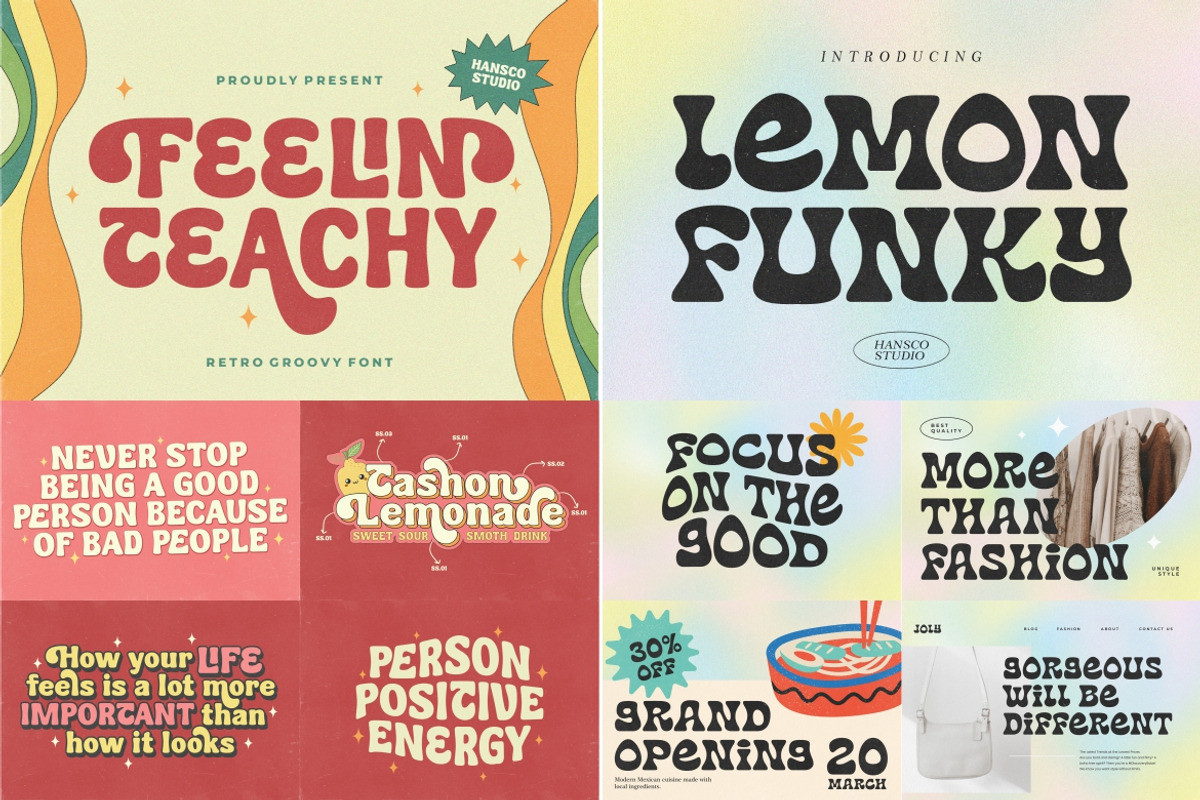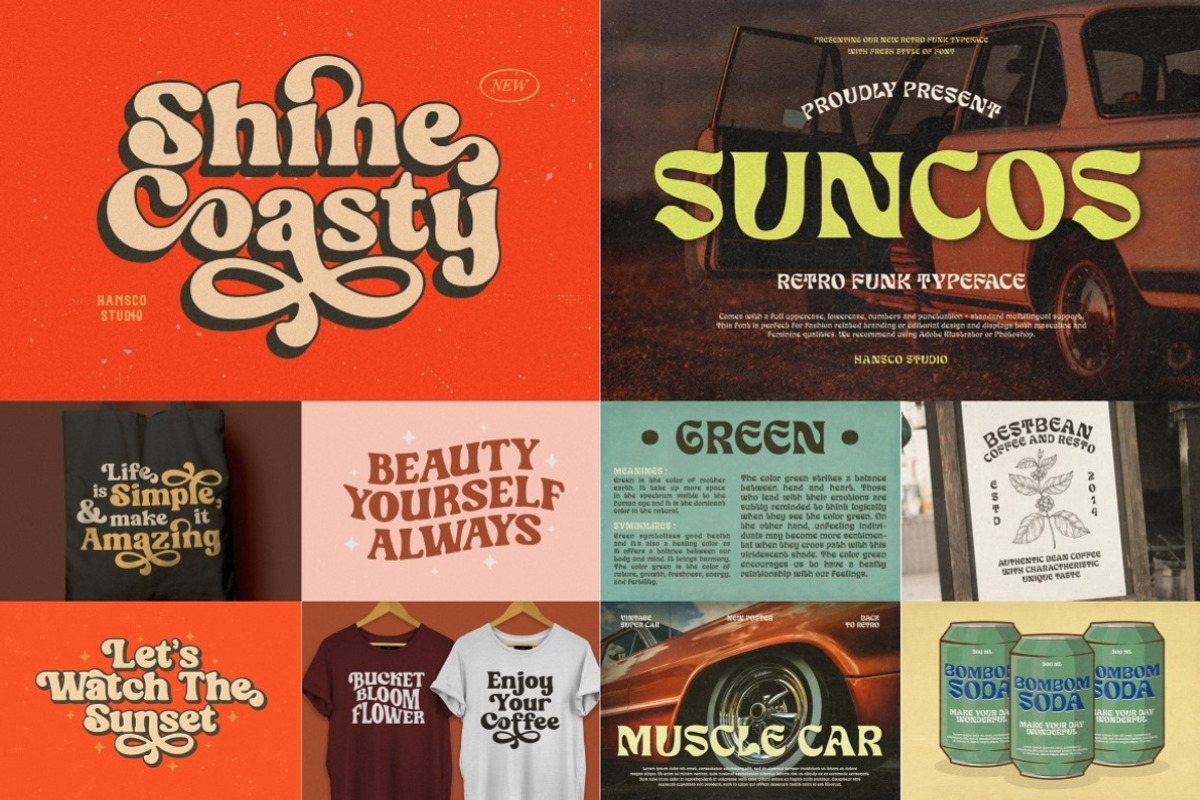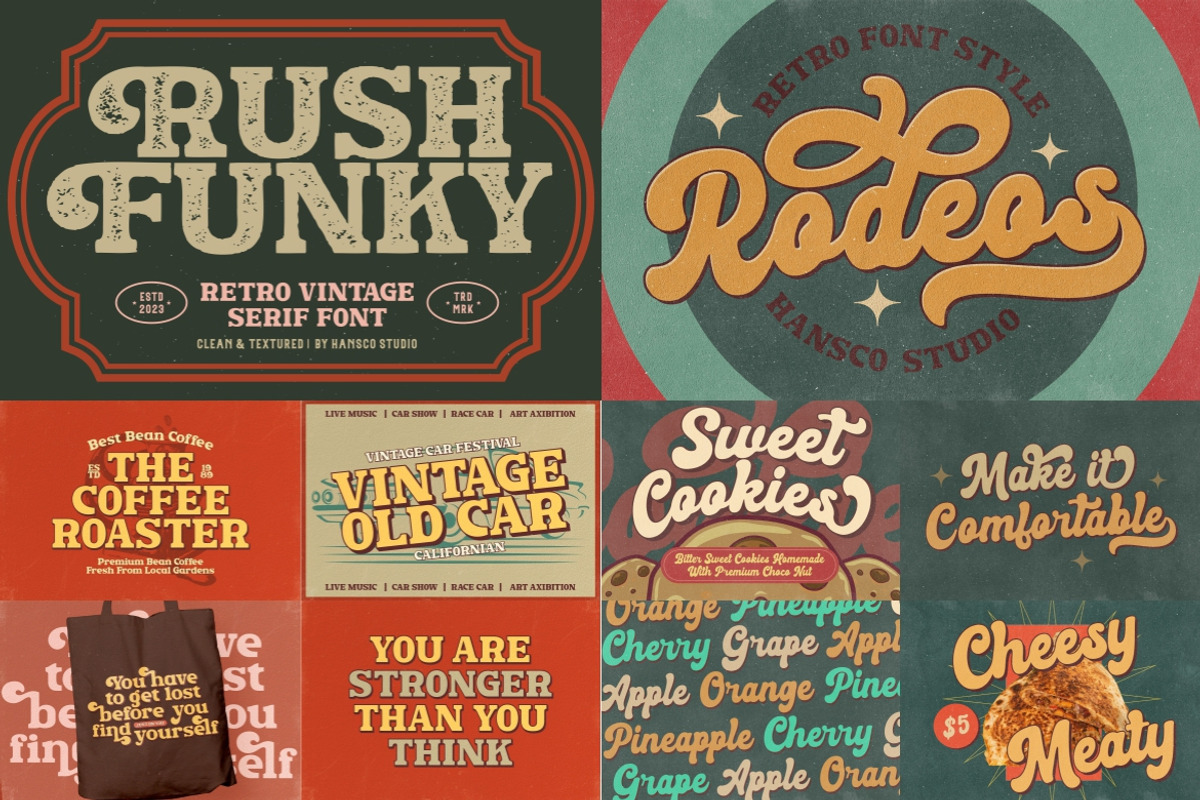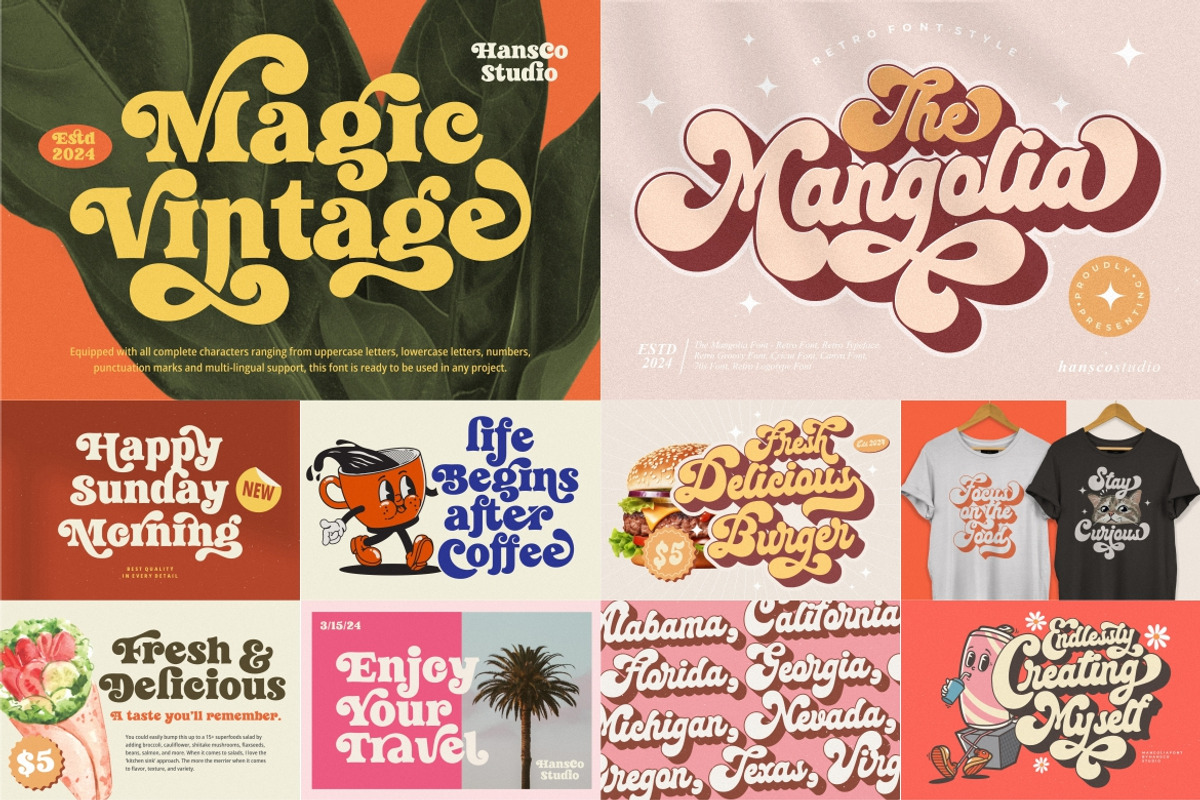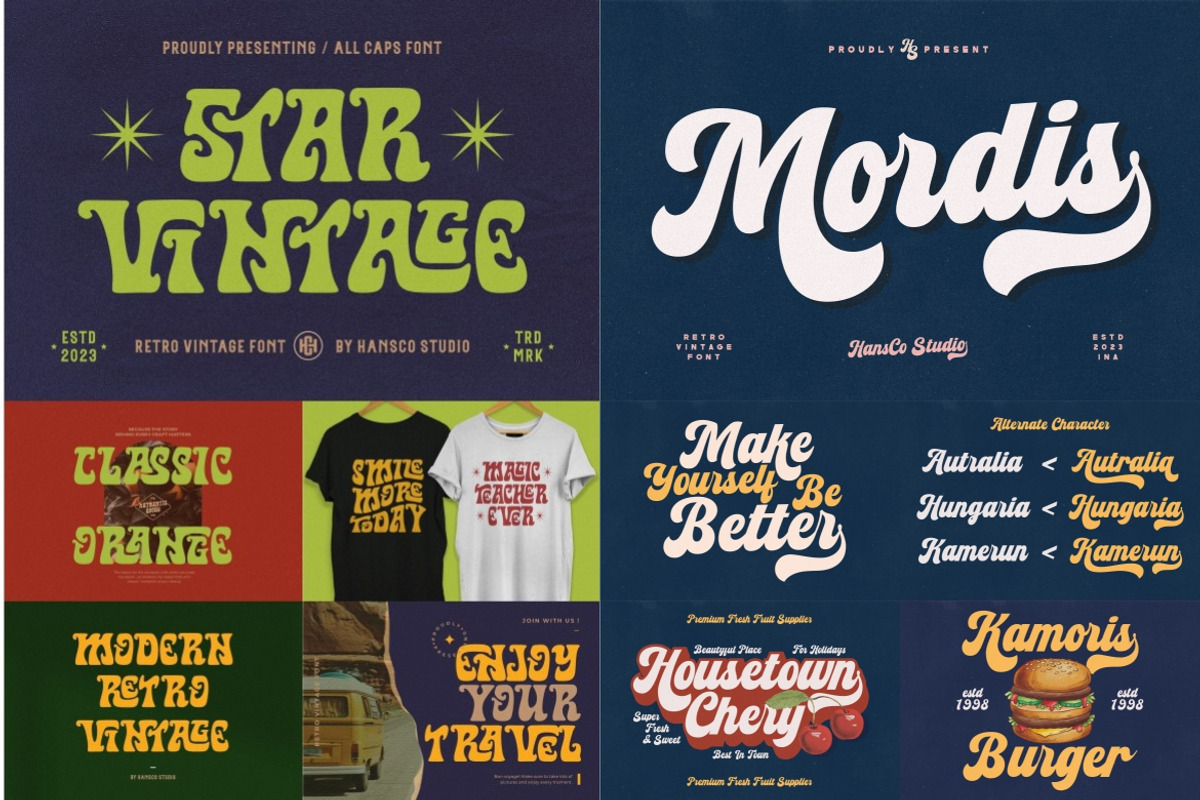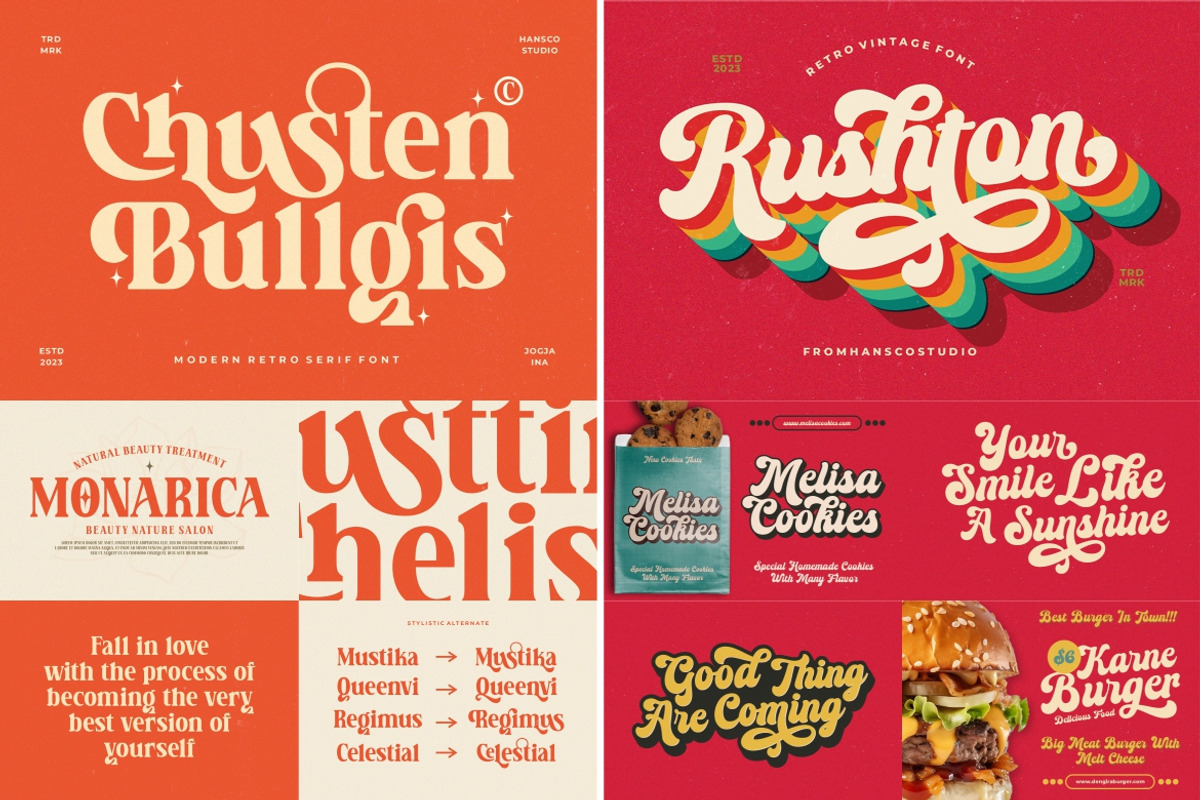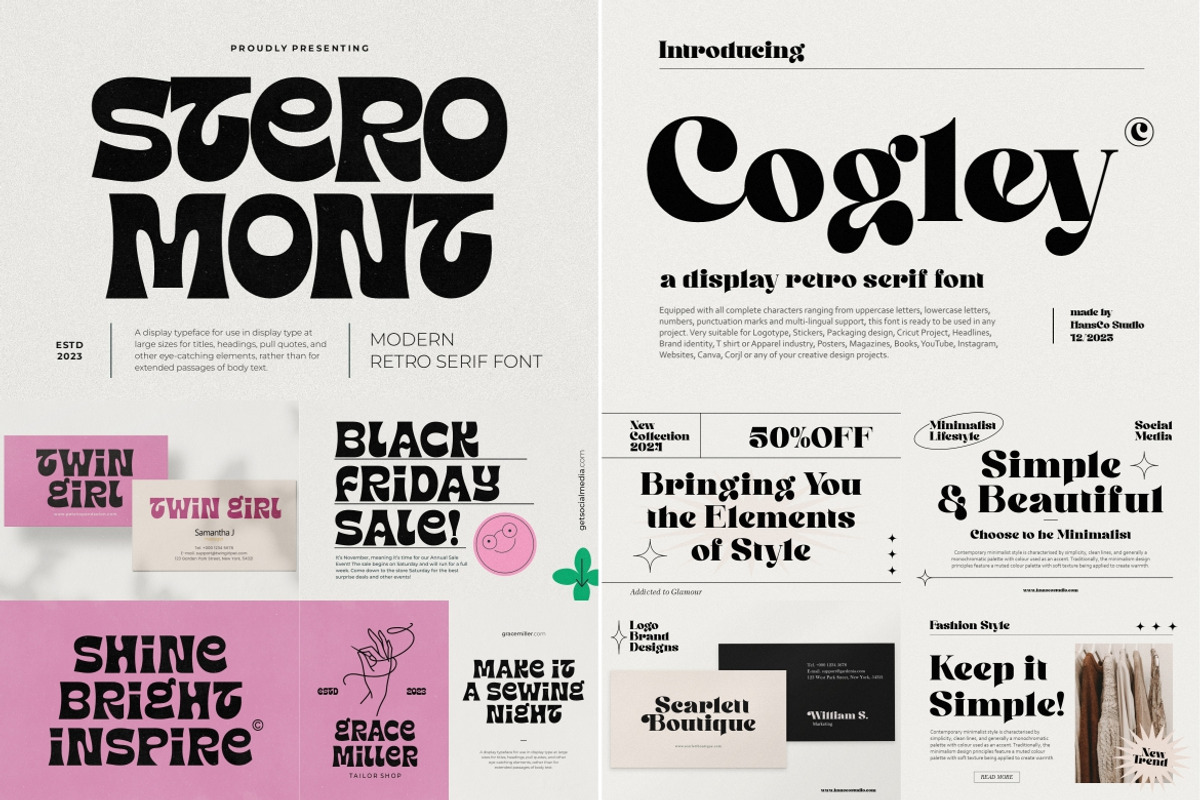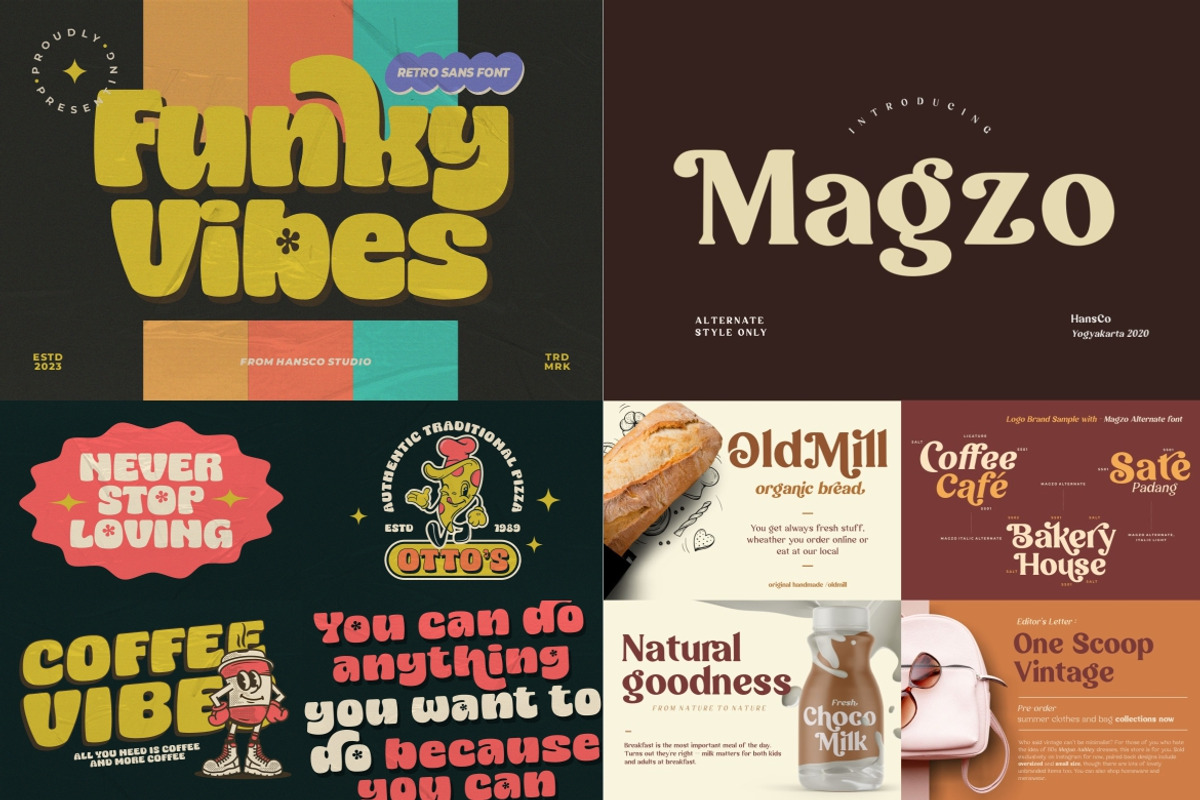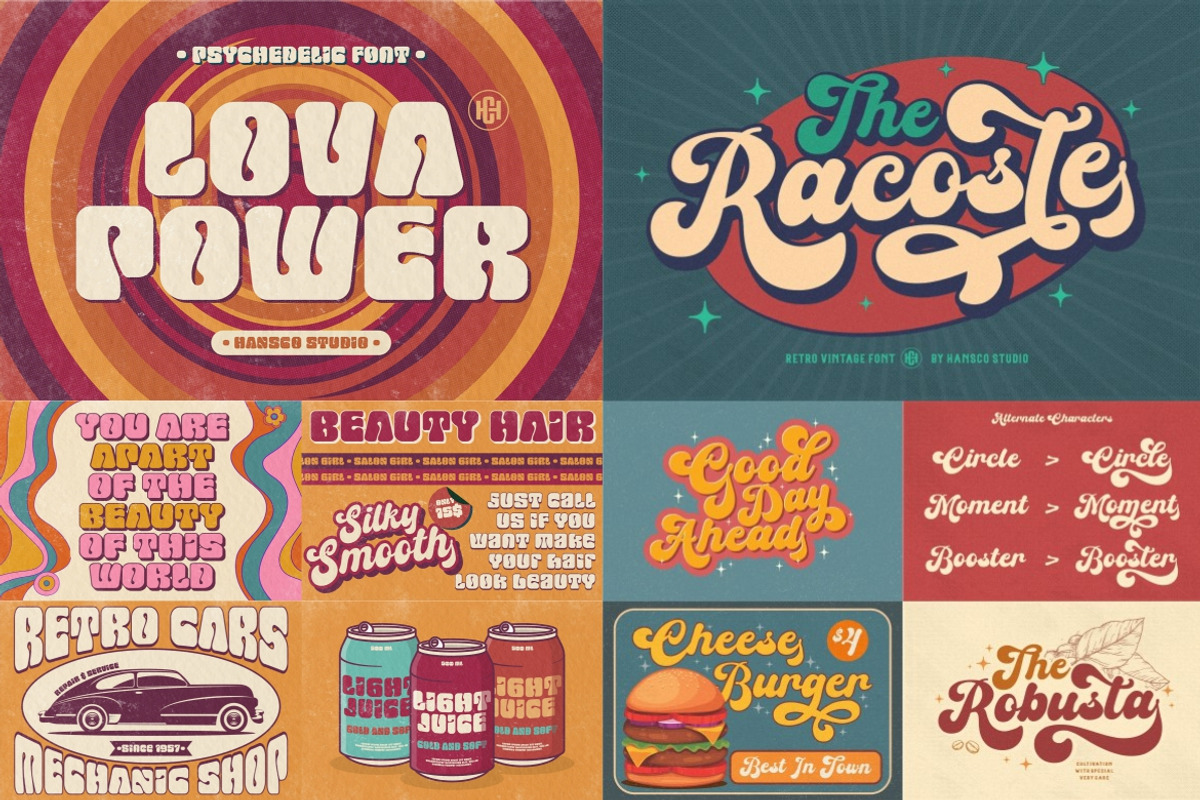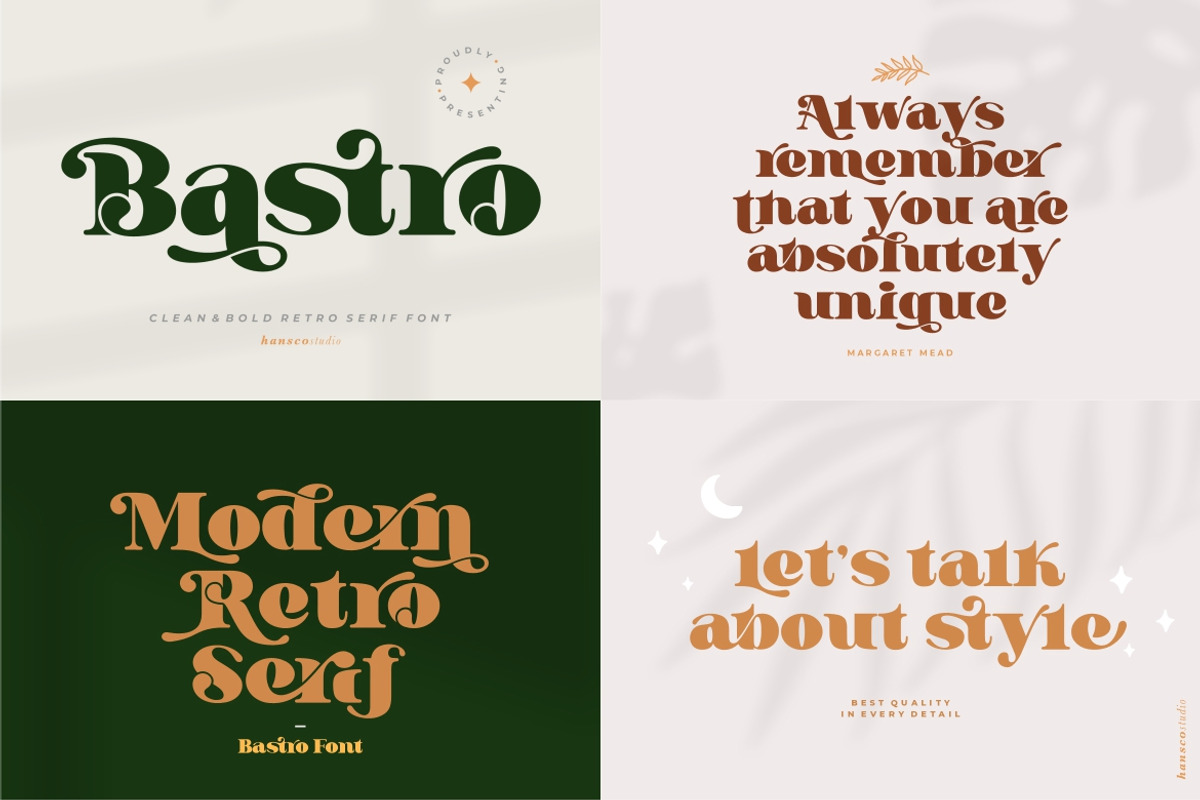
Retro Vintage Font Bundle - SALE!
Retro Vintage Font Bundle come with 25 best font family. Equipped with all complete characters ranging from uppercase letters, lowercase letters, numbers, punctuation marks and multi-lingual support, this font is ready to be used in any project. Very suitable for Logotype, Stickers, Packaging design, Cricut Project, Headlines, Brand identity, T shirt or Apparel industry, Posters, Magazines, Books, YouTube, Instagram, Websites, Canva, Corjl or any of your creative design projects. Use this Modern Retro Vintage Font Bundle to add that special modern retro vintage touch to any design idea you can think of!
- Alternate Character